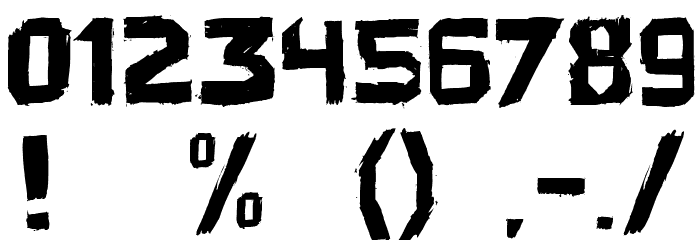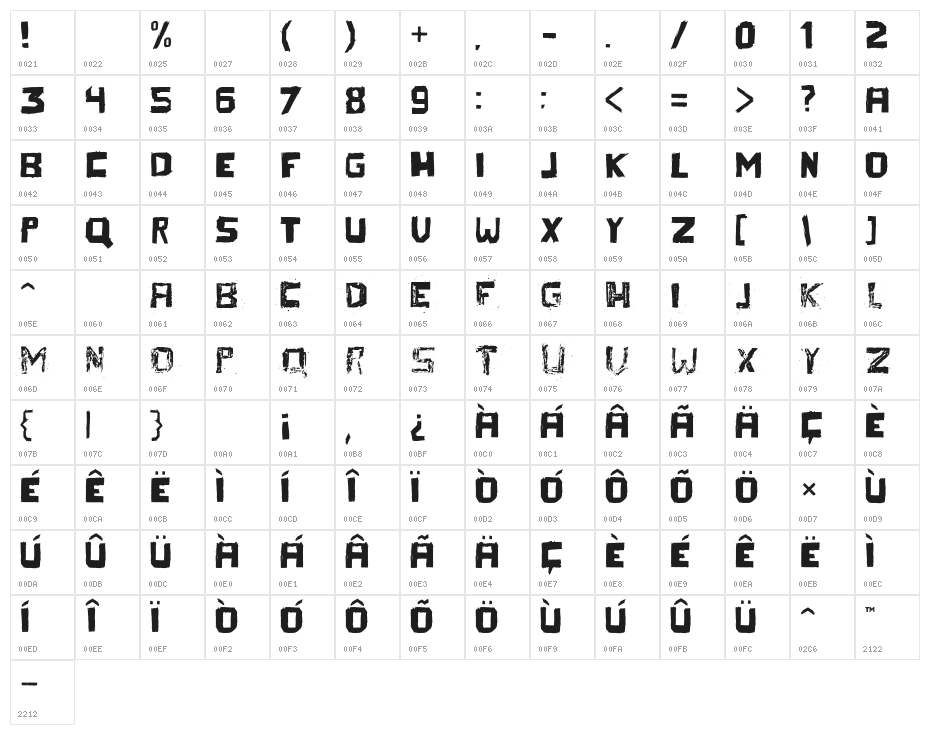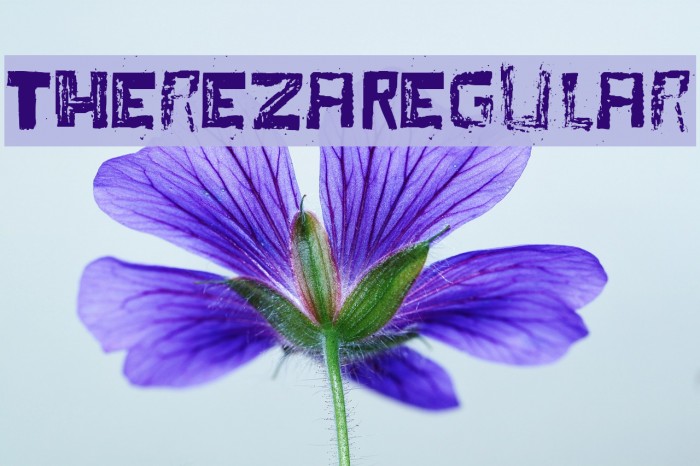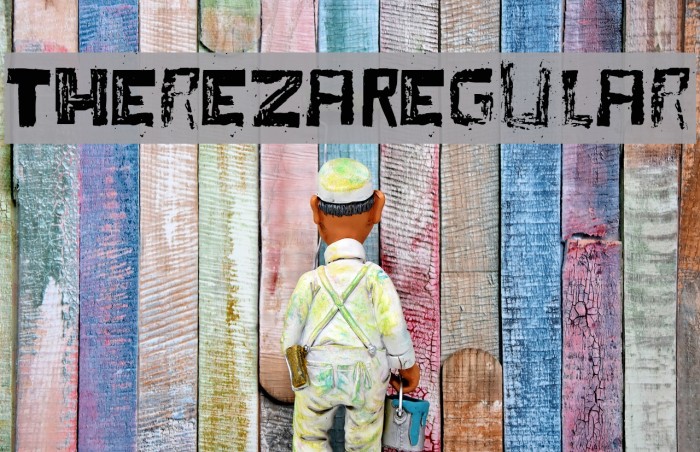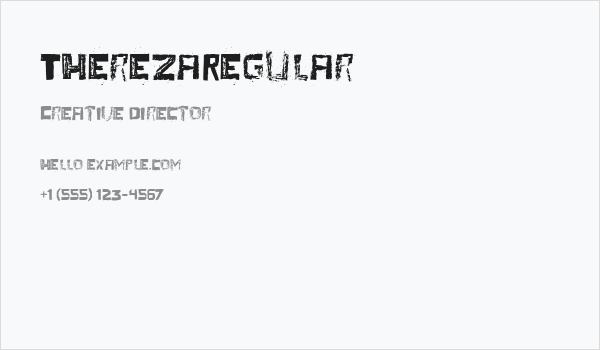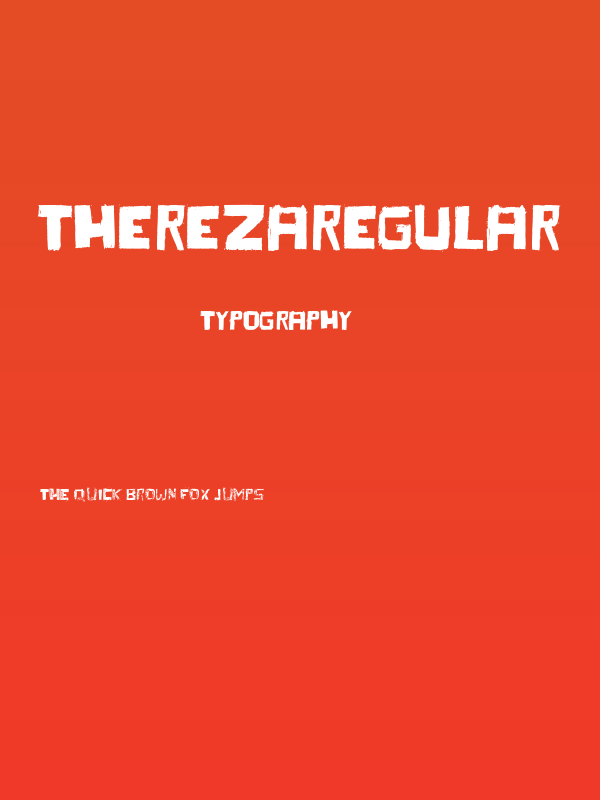
TherezaRegular Font
TherezaRegular Description
This font features a bold and distressed style, with a rugged and textured appearance that suggests a worn or grunge aesthetic. The uppercase letters are blocky and robust, with uneven edges that add to the distressed look. The lowercase letters maintain the same rugged texture, providing a cohesive appearance across the typeface. Numbers and special characters follow the same design principles, ensuring consistency throughout. This font's unique style makes it stand out, offering a visually striking option for projects that require a bold statement.
A bold, distressed font with a rugged, textured appearance from Distorted Eroded fonts.
- Proposed Projects: Ideal for posters, album covers, branding for edgy or alternative products, and any design that requires a bold, impactful statement.
- Overall Style: Grunge, Distressed